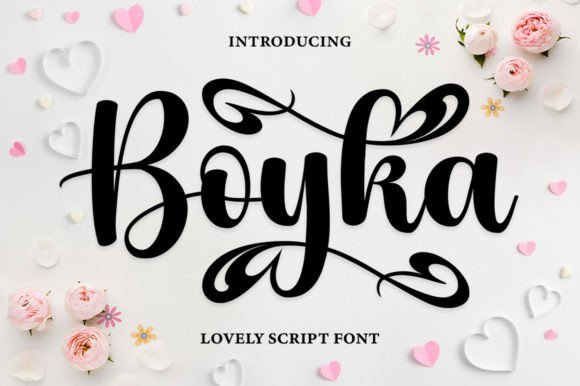
Unveil the charm of Boyka, a captivating script font family crafted by Ws Studio. This graceful font, a perfect choice for reading scripts, invites you to embark on a journey of creative expression.
Embrace the warmth of Boyka's romantic and jovial aura, as it transforms your digital projects into stunning masterpieces. With its user-friendly PUA coding, you can effortlessly access a world of glyphs and swashes, adding depth and character to your texts, while the complete language support ensures seamless integration with your creative vision.
Let your imagination soar as you witness your words come to life, imbued with the elegant and effortless charm of Boyka.